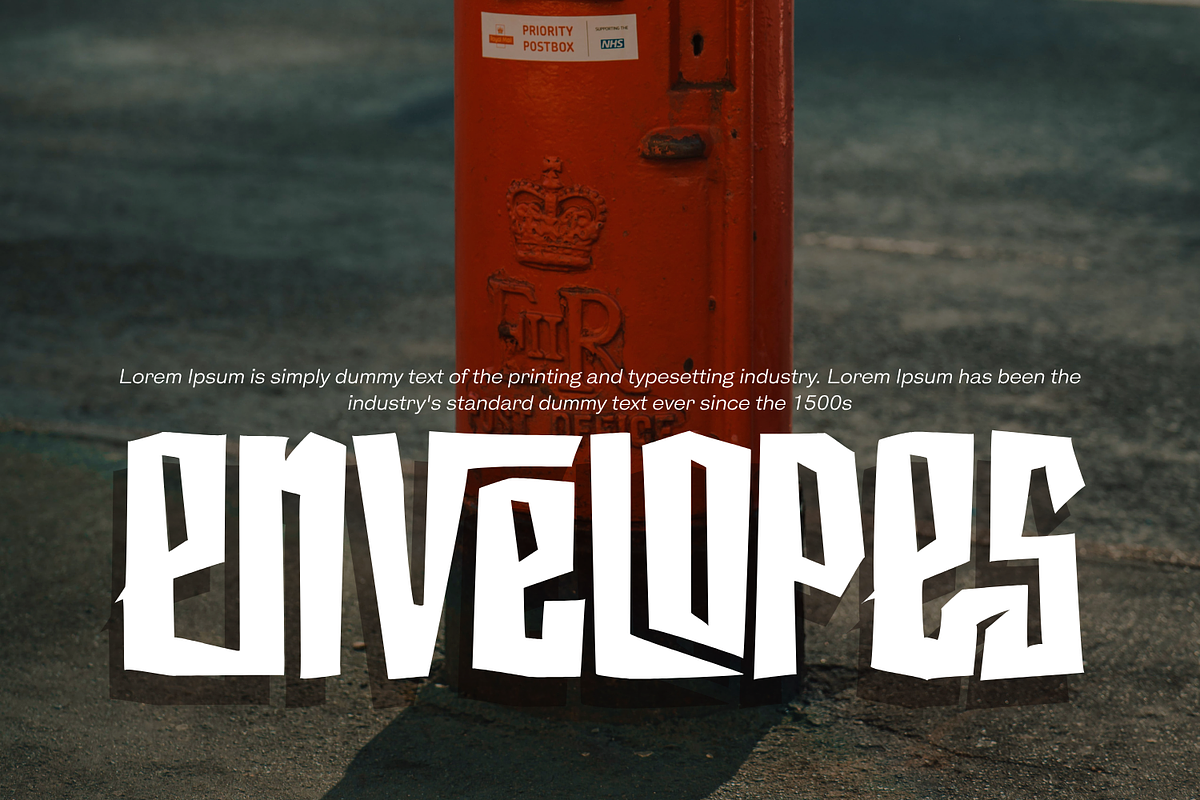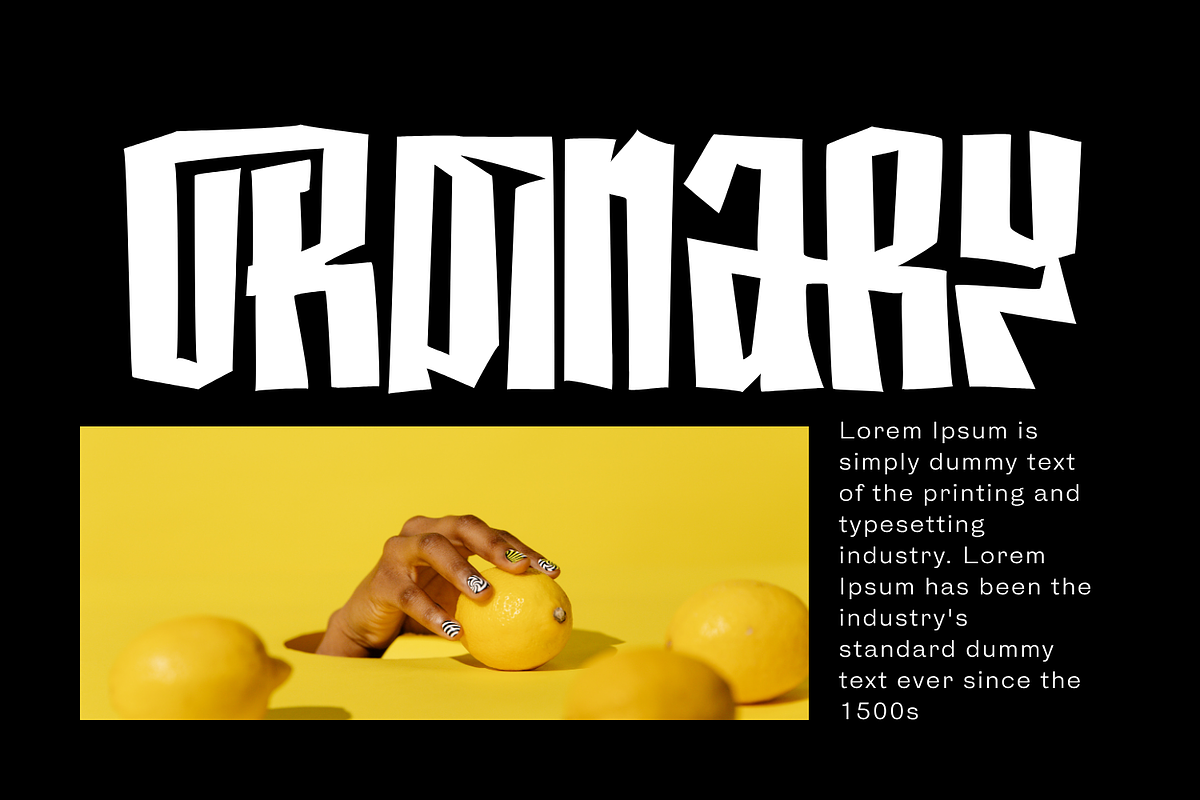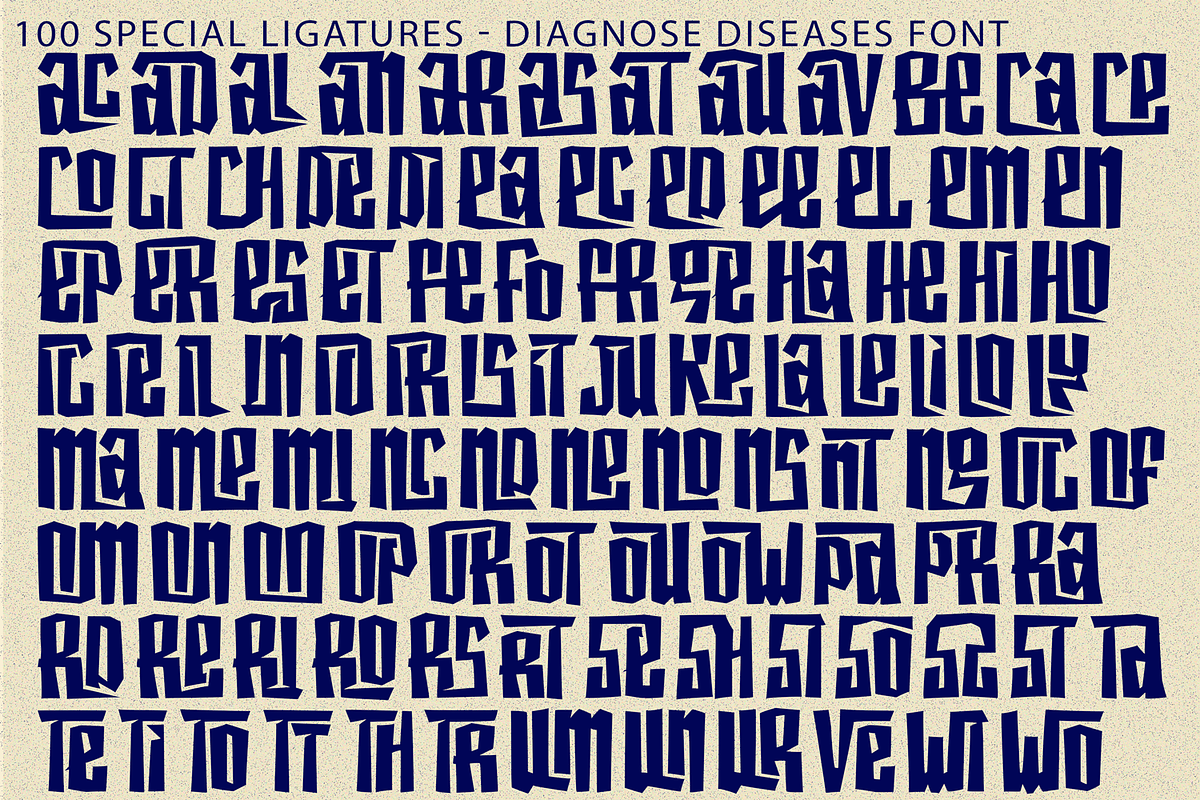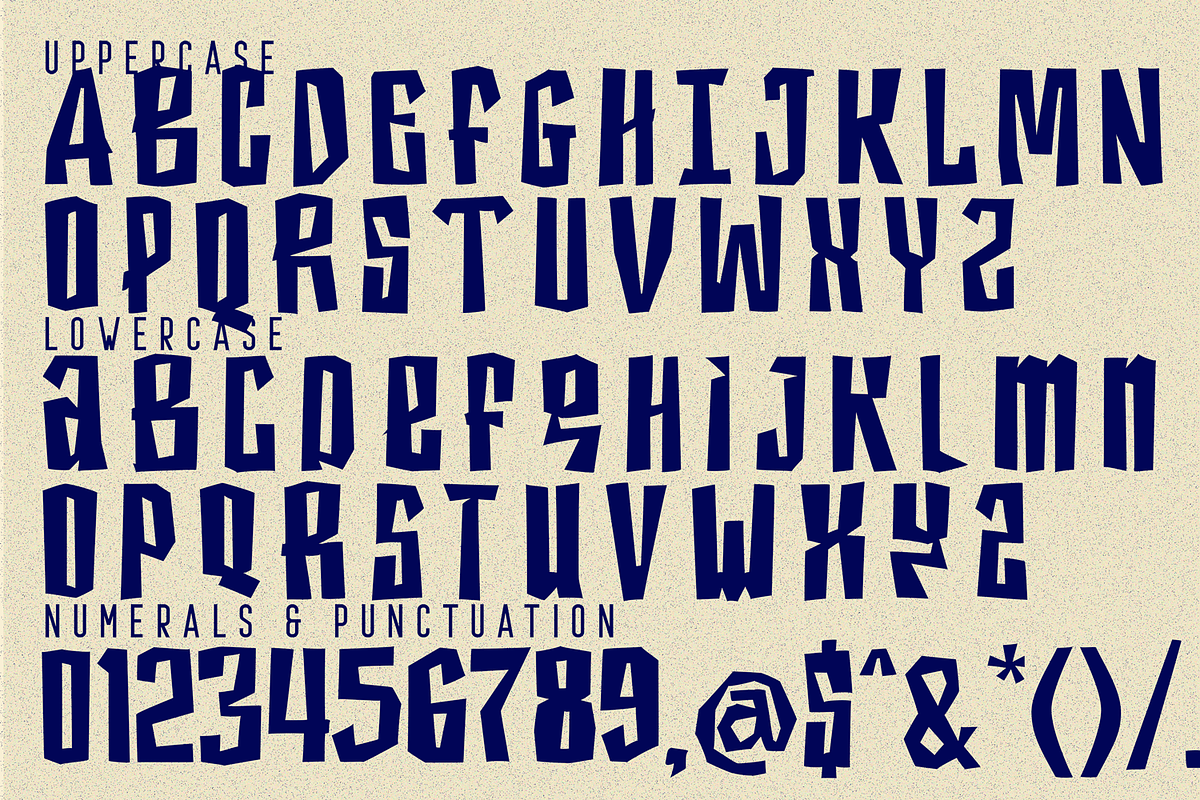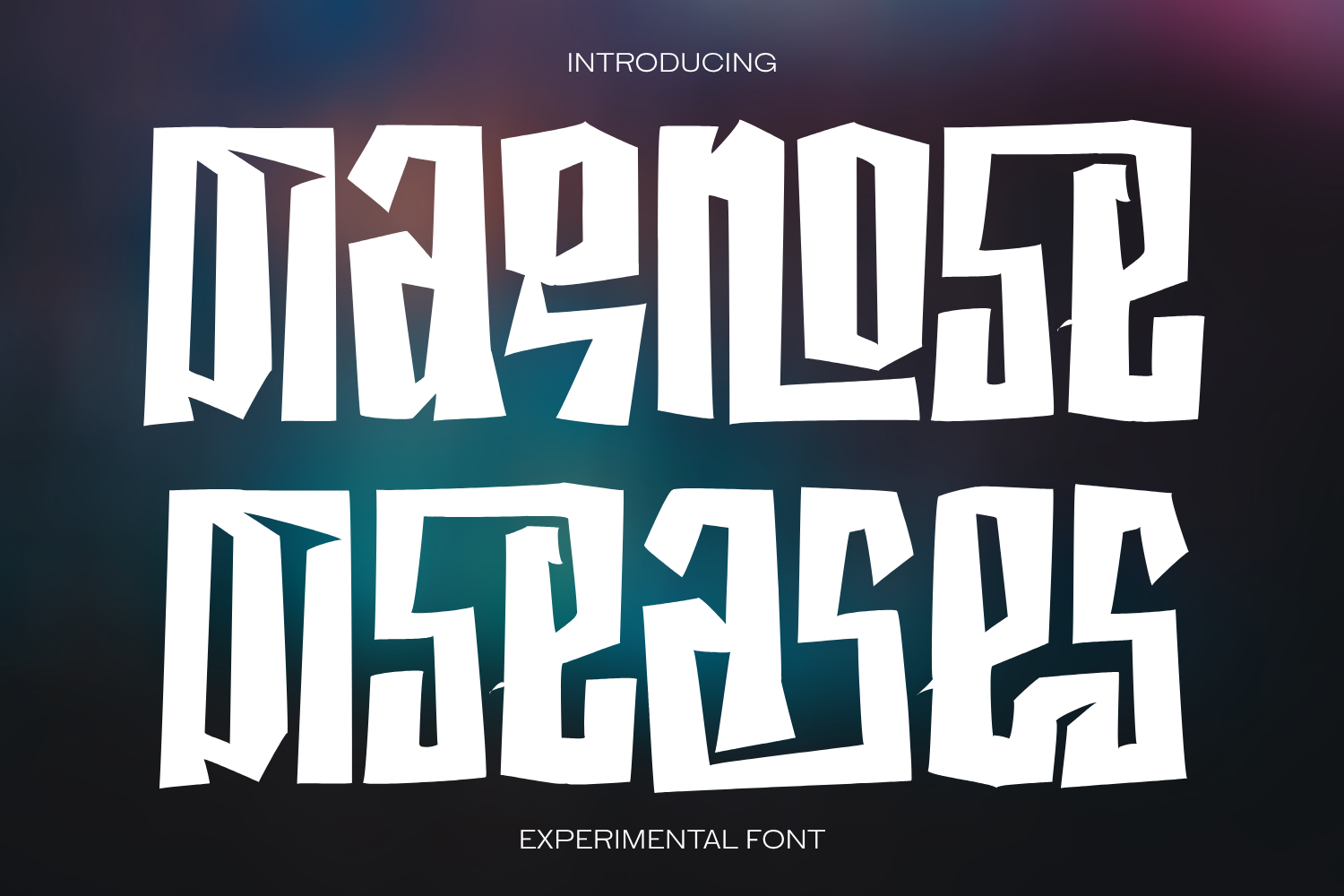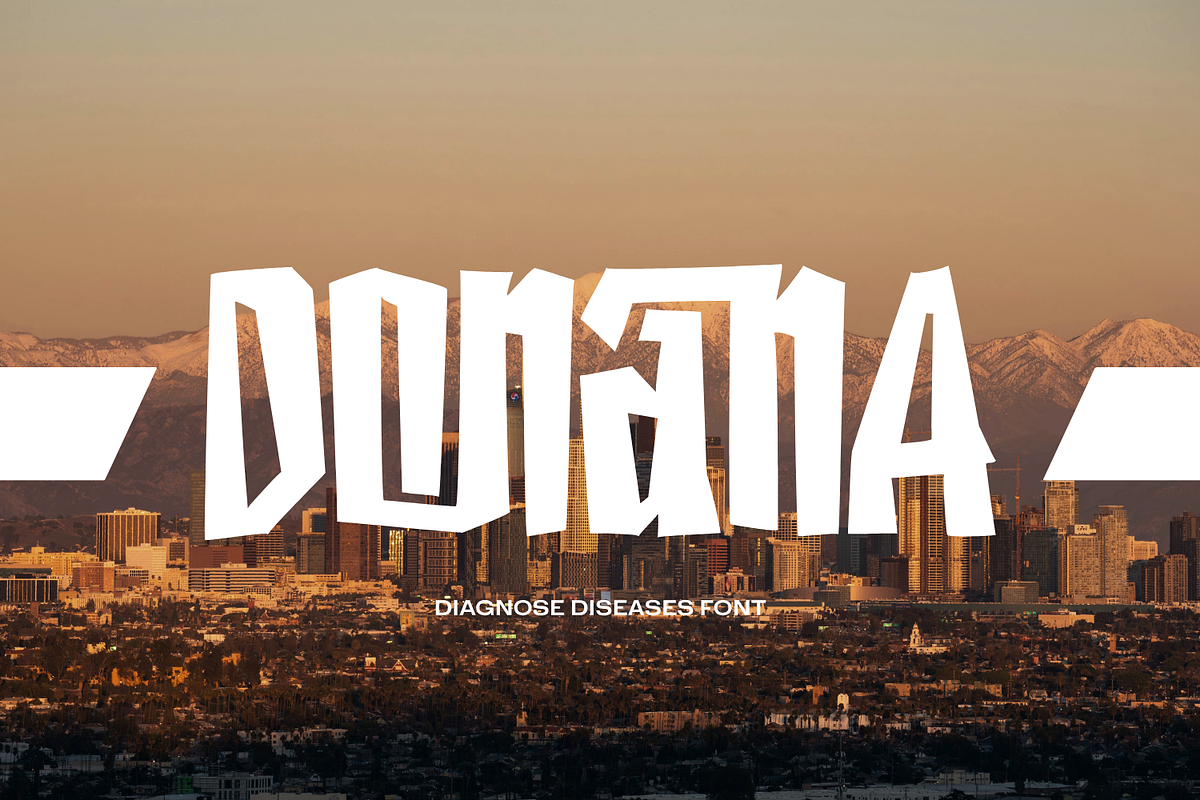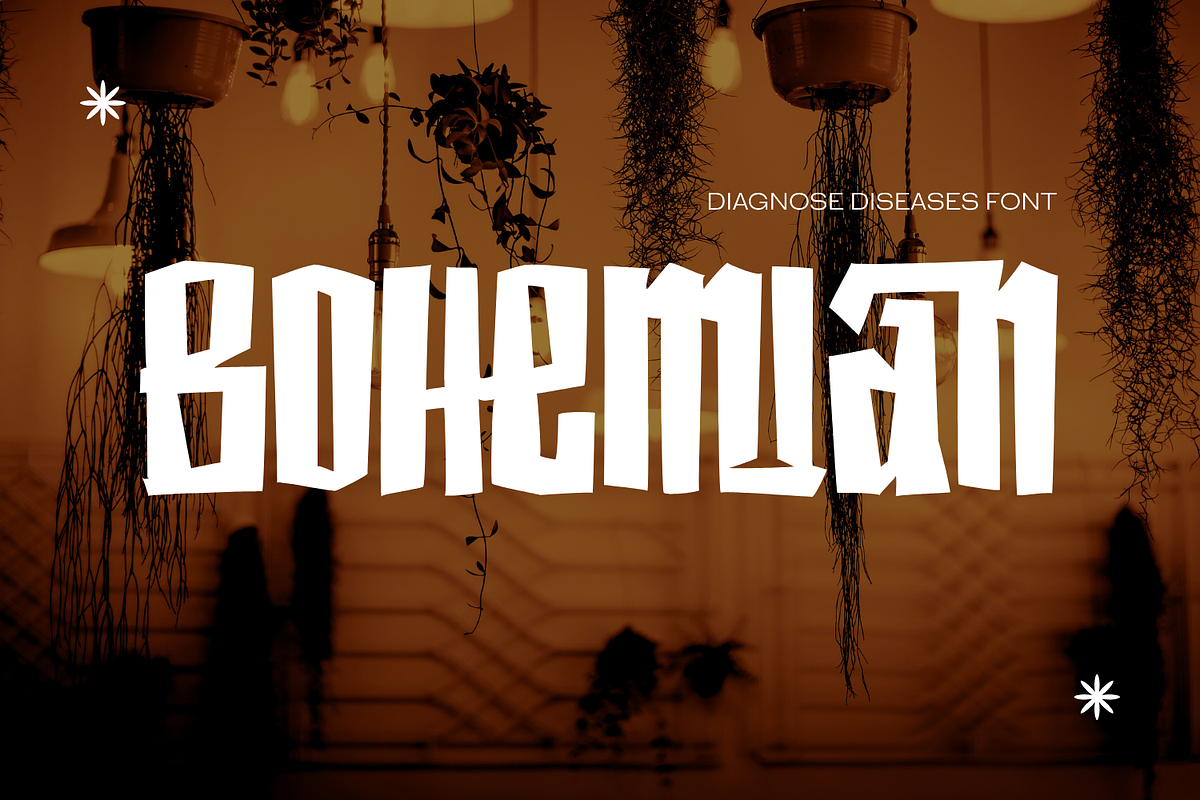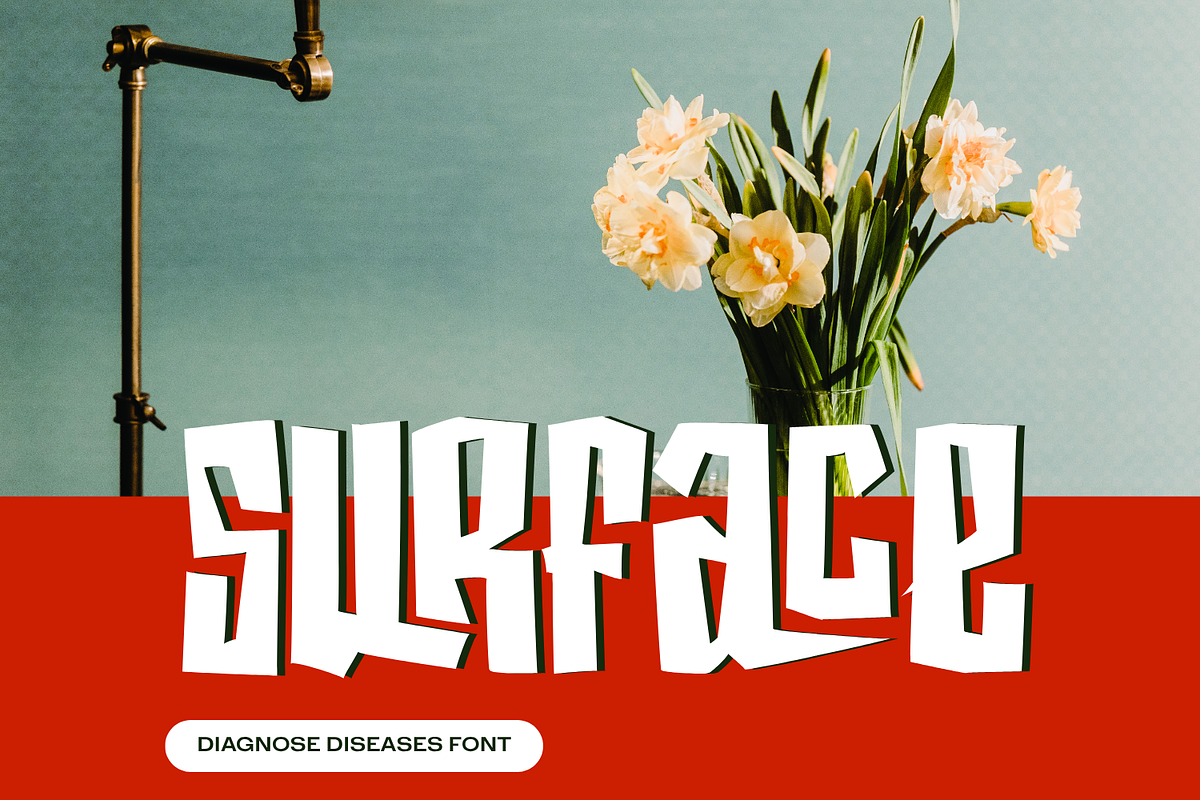
Diagnose Diseases - Playful Font
Diagnose Diseases - Playful Font, a bold and rebellious display font designed to make a massive impact. Characterized by its unapologetically jagged edges, asymmetric geometric shapes, and heavy, blocky letterforms, this font delivers a raw, aggressive, and highly stylized aesthetic. Inspired by DIY cut-out art and underground punk vibes, Diagnose Diseases intentionally breaks the rules of traditional typography with its irregular proportions and sharp angles. It is the ultimate choice for designers looking to inject edgy energy into streetwear branding, grunge-style music posters, striking album covers, or any project that demands to stand out and grab instant attention.
🔤Features:
- Uppercase & Lowercase Letters
- Around 100 Special Ligatures & Alternates
- Accented Characters for multilingual support
🔤About 100 ligatures combined with Stylistic Alternates Font:
ac ad al an ar as at au av be ca ce ch co ct de di ea ec ed ee el em en ep er es et fe fo fr ge ha he hi ho ie ic il in io ir is it ju ke la le li ll lo ly ma me mi nc nd ne ng no nt ns oc of om on oo op or ot ou ow pa pr ra rd re ri ro rs rt se sh si so ss st ta te th ti to tr tt um un ur ve wi wo